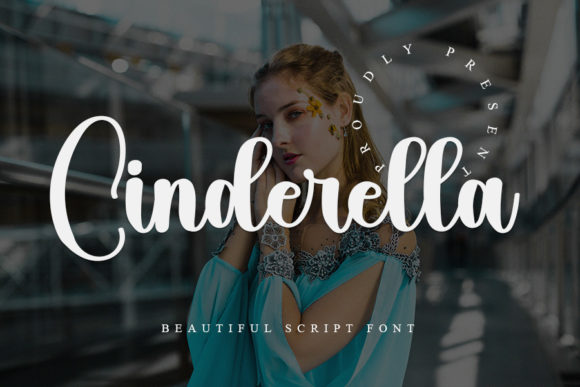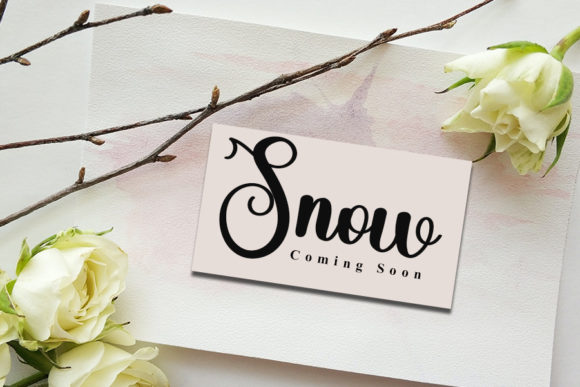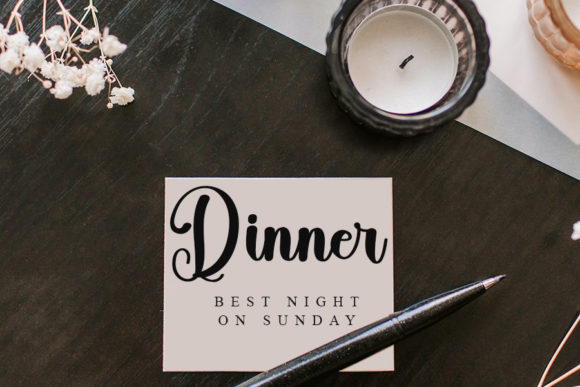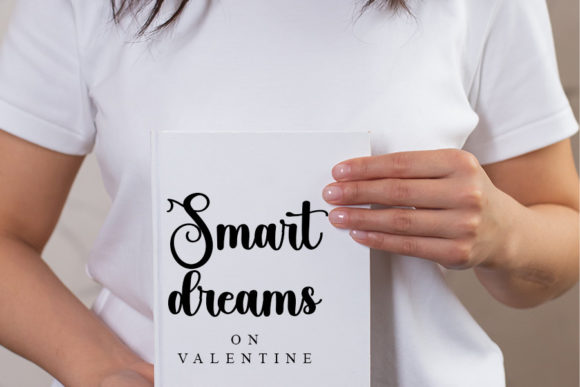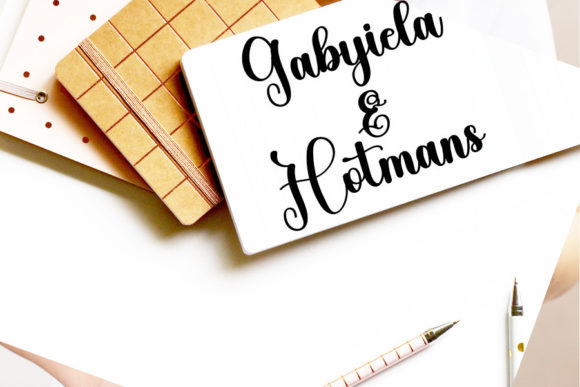
About Cinderella Font
Cinderella is a stylish handwritten font with a contemporary atmosphere and impeccable form, inspired by a timeless classic calligraphy. Balanced and varied, this font was designed to enhance the beauty of your projects.